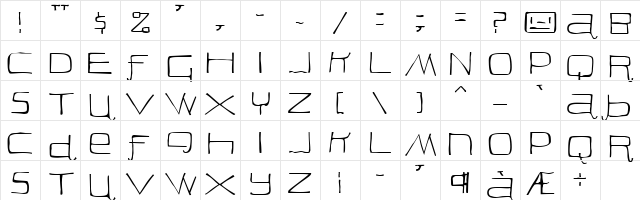
Peon Normal Free Font
Peon Normal
Design Context for Peon
Peon is a composed and adaptable typeface that performs quietly and consistently across a wide range of design contexts.
Pro Tip: Use Peon in both headline and body roles to test its range before committing to a single application.